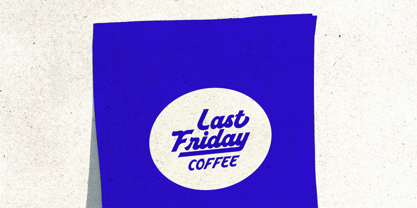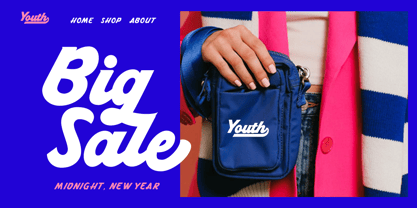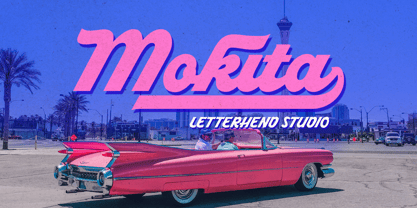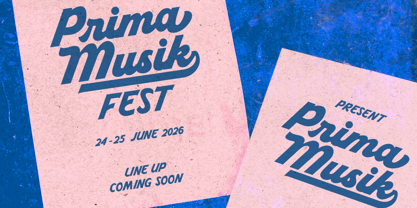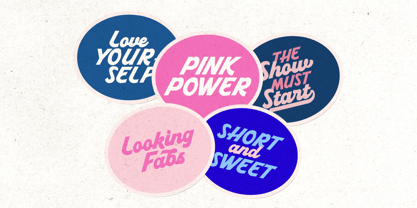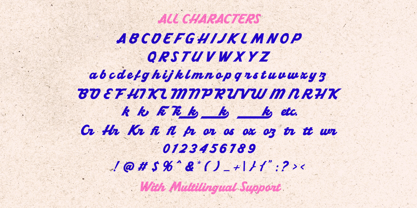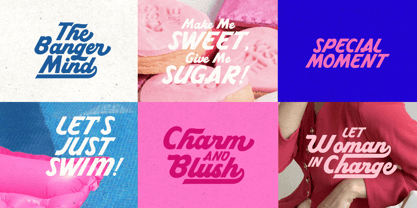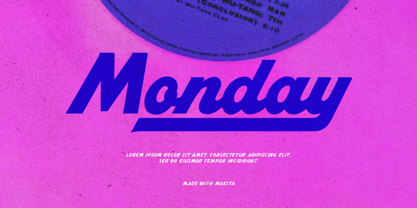
Mokita
by Letterhend
The Mokita Font Family was designed by Hendry Juanda and published by Letterhend. Mokita contains 1 styles. More about this family
This Mokita — a bold script font with a retro twist, capturing the essence of 1960s design. Featuring an easy-to-use extrude version, it’s perfect for creating eye-catching retro effects. Whether it’s logos, packaging, invitations, or any creative project, The Mokita adds a fresh and modern flair with a nostalgic edge.
Features :
• Uppercase & lowercase
• Numbers and punctuation
• Alternates Character
• Multilingual support
Designers: Hendry Juanda
Foundry: Letterhend